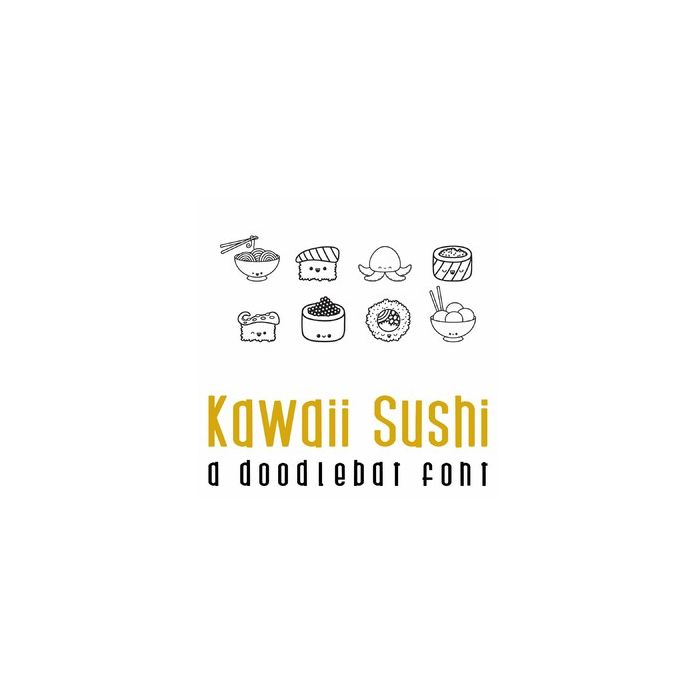
Kawaii Sushi Doodlebat Font
This fun doodlebat font features 26 adorable kawaii style sushi. Perfect for cards, gifts, decor, crafts, scrap book pages, planner stickers and more!